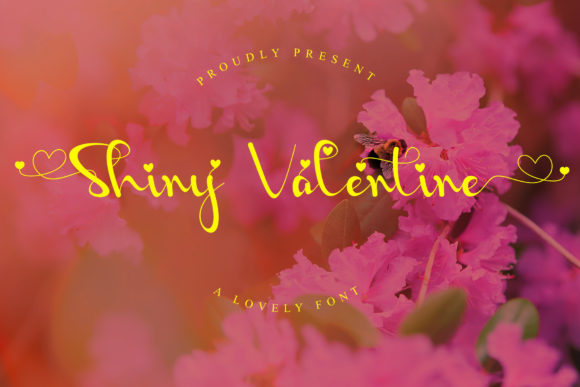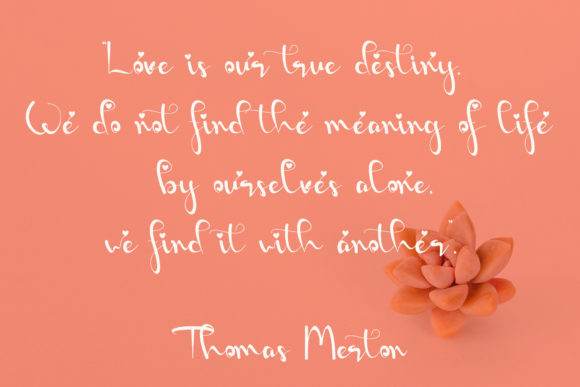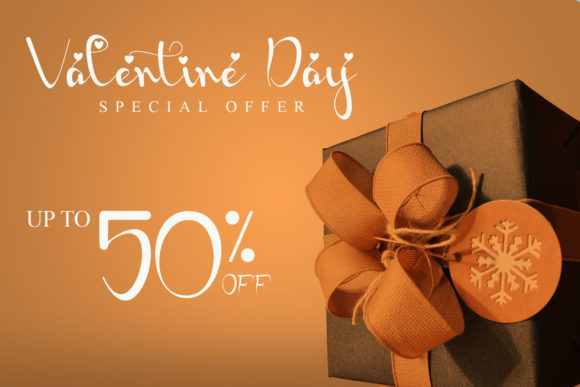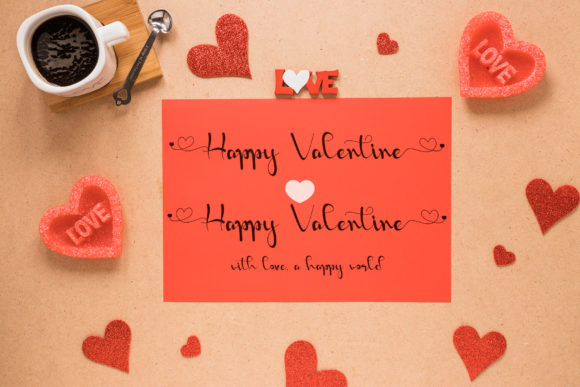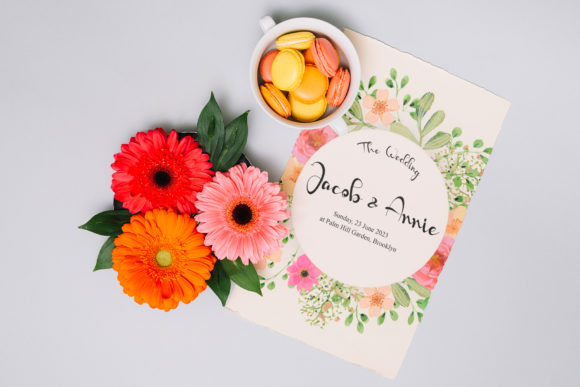
About Shiny Valentine Font
Shiny Valentine is a romantic and sweet calligraphy typeface with characters that dance along the baseline. It has a casual, yet elegant touch. This font is PUA encoded which means you can access all of the glyphs and swashes with ease!